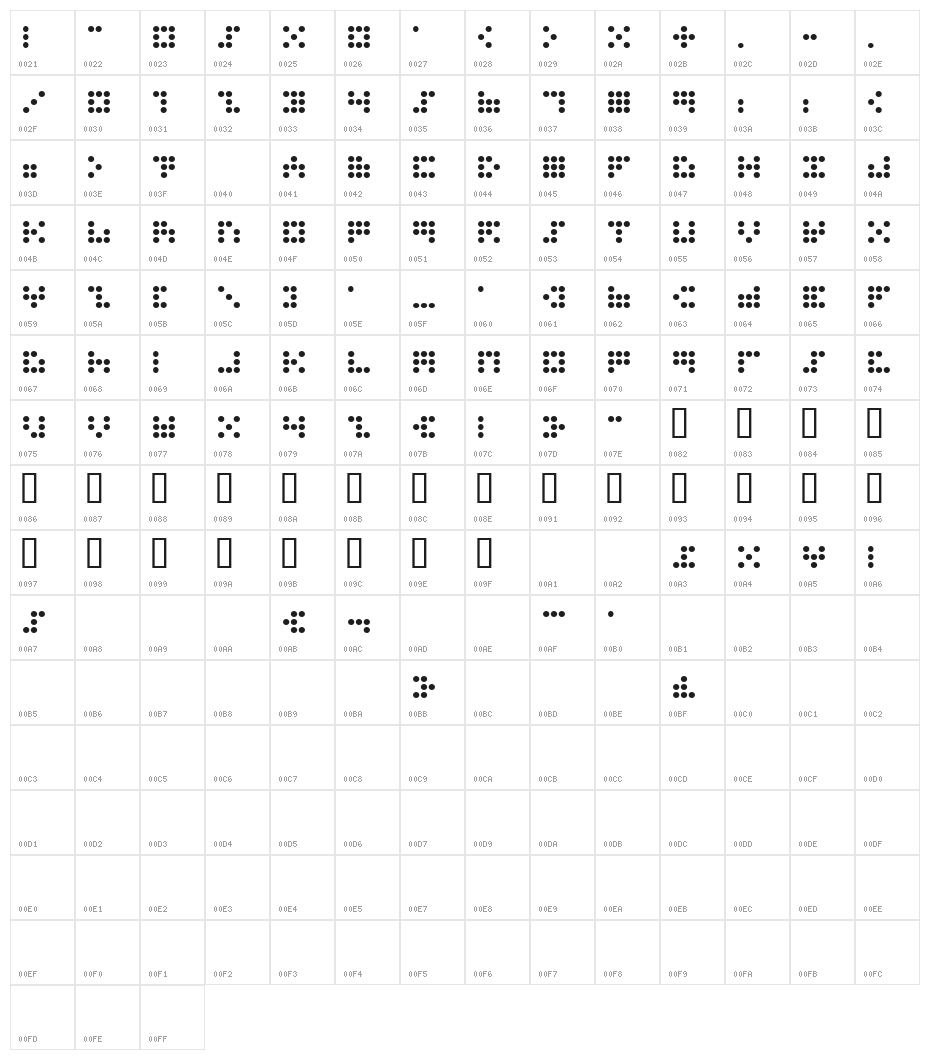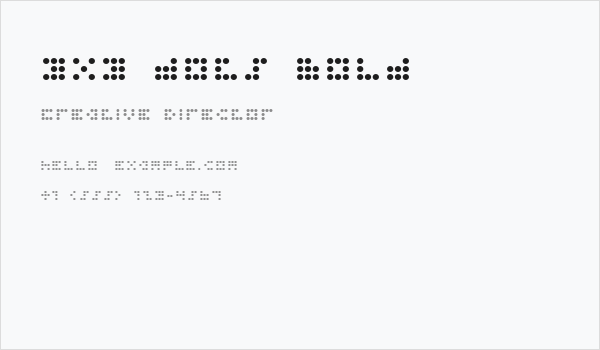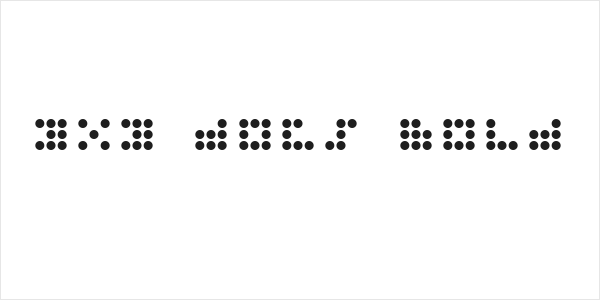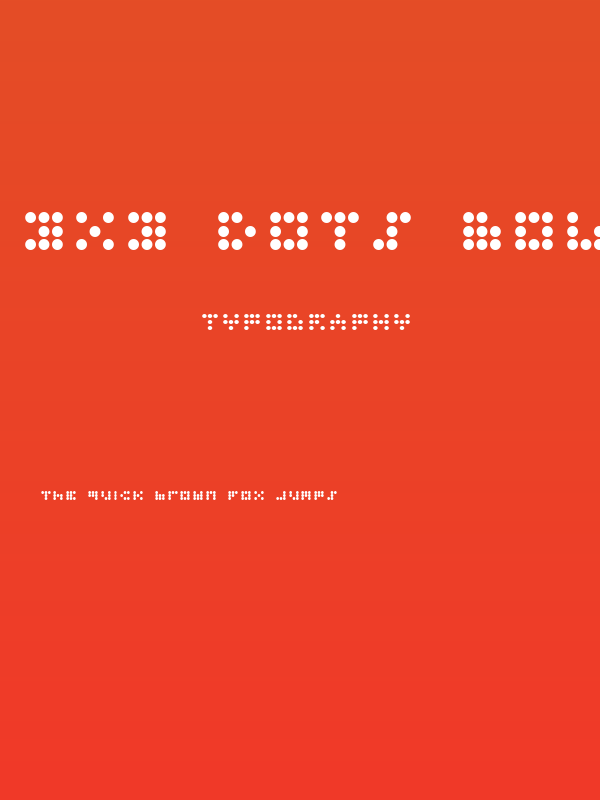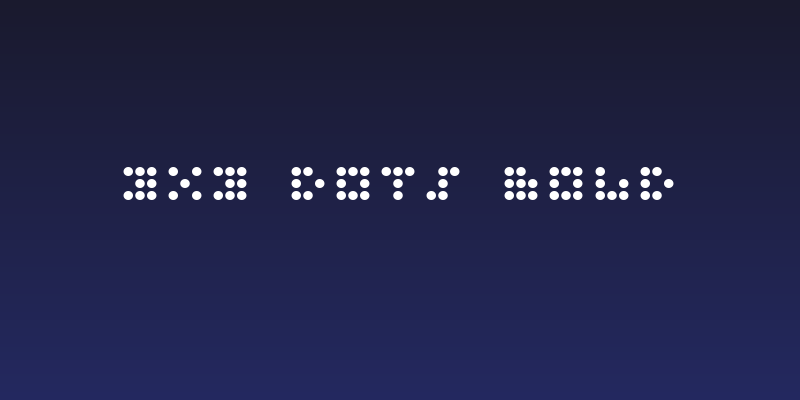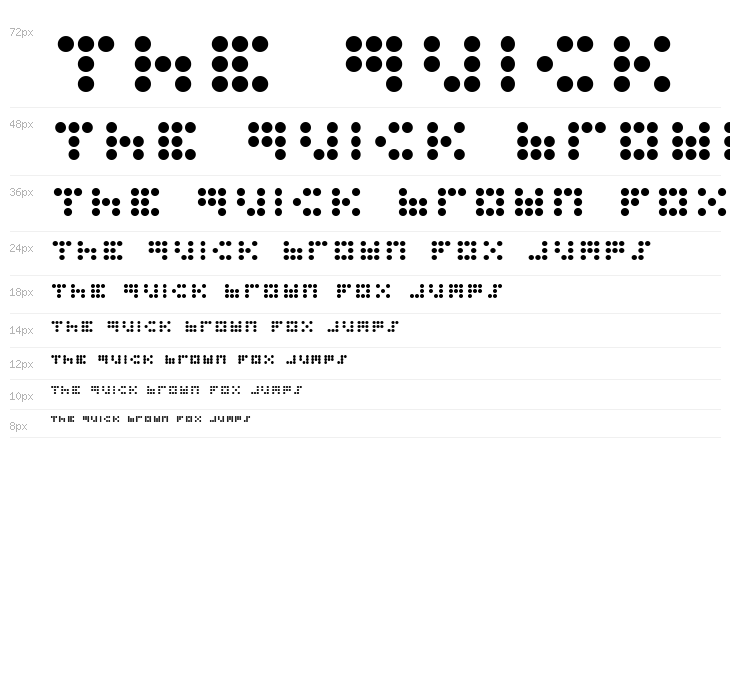
3x3 dots Bold Font
3x3 dots Bold Description
This font features a unique design where each character is constructed using a grid of 3x3 dots. The dots are evenly spaced, creating a pixelated effect that is both modern and playful. The uniformity of the dot arrangement gives the font a consistent and structured appearance, while the rounded nature of the dots adds a touch of softness. This style is reminiscent of digital or retro gaming aesthetics, making it ideal for projects that require a tech-savvy or nostalgic feel. The font maintains legibility despite its unconventional form, offering a distinctive look that stands out in various design contexts.
| Proposed Projects | Ideal for digital art, retro-themed designs, tech branding, video game interfaces, and creative posters. |